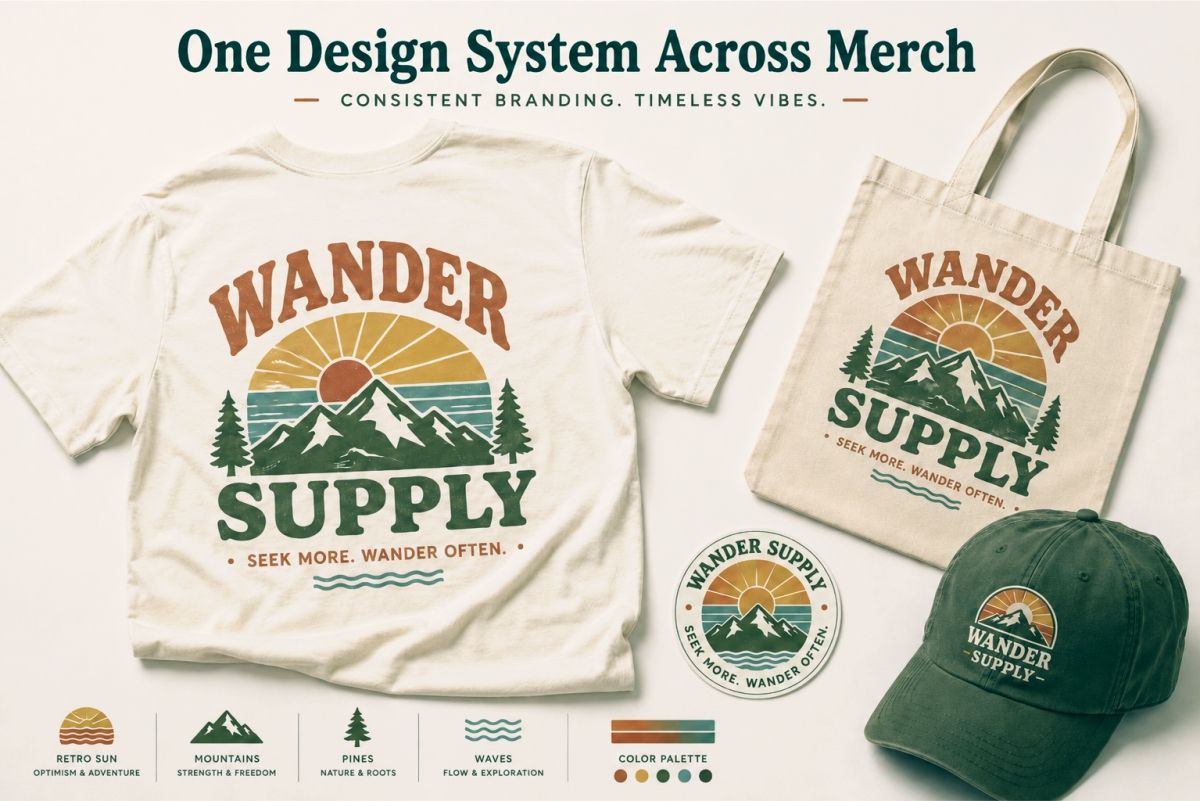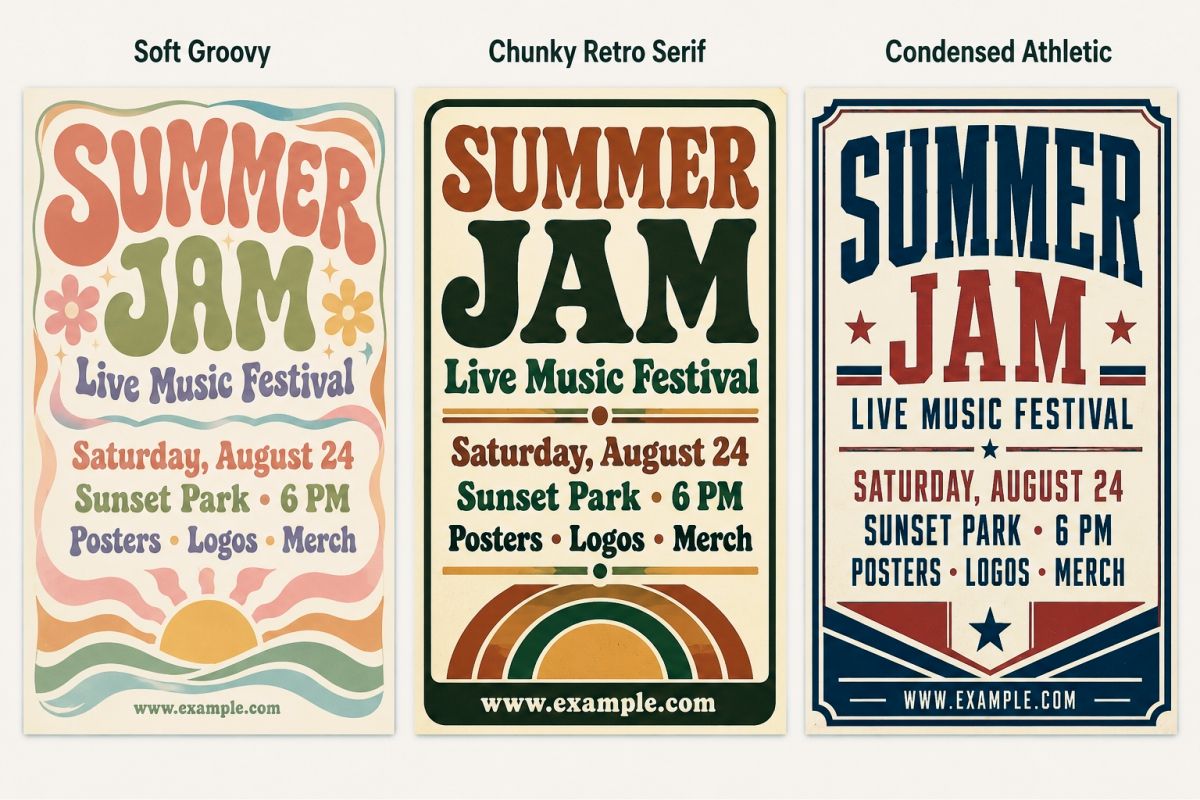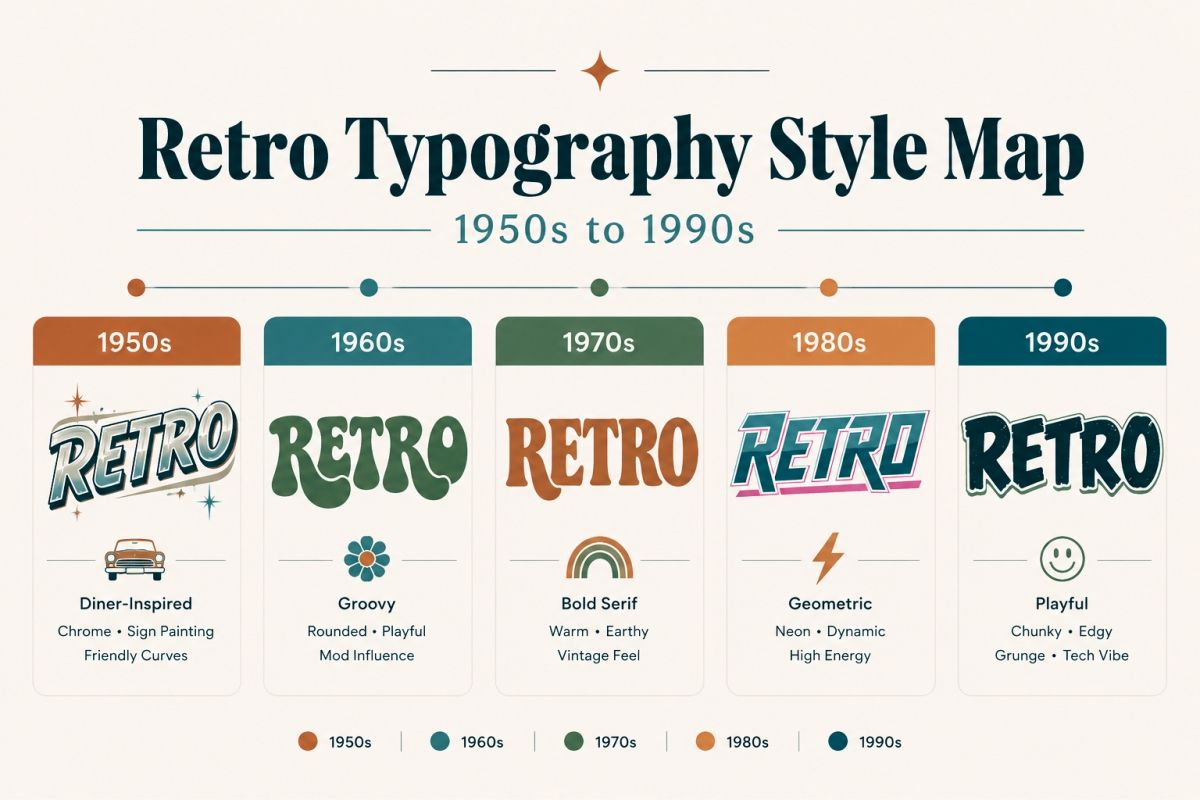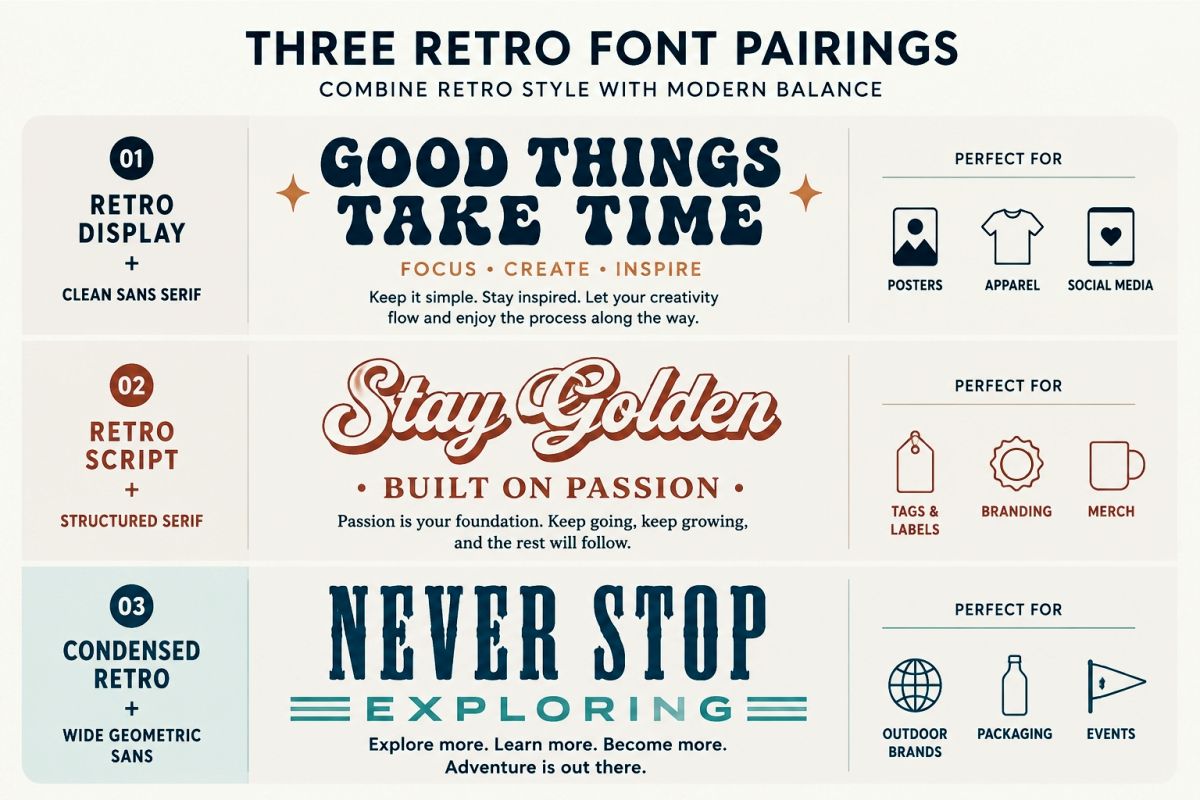
Retro Font Design Ideas for Posters, Logos, and Merch
Retro typography has a strange advantage.
It can make a new design feel familiar before someone has even read the words.
The rounded curves of a 1970s display font can feel warm and expressive. A condensed athletic typeface can bring back the energy of vintage team shirts. A slanted geometric font can make you think of arcade machines, racing graphics, or early computer packaging.
But good retro font design is not simply about choosing an old-looking typeface.
The font is only the starting point.
You also need to think about spacing, color, layout, texture, supporting fonts, and the final product. A font that looks brilliant on a large poster may become difficult to read on a small clothing label. A style that works on a T-shirt may feel too decorative for a long-term brand identity.
In this guide, I’ll show you how to approach retro typography as a complete visual system. You’ll find practical ideas for posters, logos, merchandise, and branding, along with a simple checklist for choosing a retro font you can actually use.
What Is Retro Font Design?
Retro font design uses typography inspired by visual styles from an earlier period.
That period could be the bold commercial lettering of the 1950s, psychedelic shapes from the 1960s, rounded display fonts from the 1970s, or geometric technology-inspired lettering from the 1980s and 1990s.
However, retro design does not need to recreate a decade perfectly.
In many modern projects, retro typography works best when it borrows one recognizable characteristic and combines it with a cleaner contemporary layout.
For example, you might use:
• A groovy display font with a minimal cream background.
• A vintage script logo with simple sans-serif packaging text.
• An athletic font with a modern monochrome color palette.
• A distressed serif headline inside a spacious editorial layout.
• A psychedelic font with restrained supporting graphics.
This balance keeps your design nostalgic without making it look like a movie prop.
Retro font design styles from the 1950s to the 1990s
Start With the Mood, Not the Decade
It is tempting to begin by saying, “I want a 1970s font.”
That gives you a historical direction, but it does not explain what the design should communicate.
A better starting point is the mood.
Do you want the project to feel cheerful, rebellious, outdoorsy, premium, handmade, sporty, or futuristic?
Two typefaces inspired by the same decade can produce completely different results. One may feel playful and childlike. Another may feel luxurious and editorial.
Before choosing a font, write down three words that describe the project.
For example:
• Warm, handmade, relaxed.
• Loud, youthful, energetic.
• Rugged, adventurous, practical.
• Futuristic, fast, technical.
• Nostalgic, friendly, approachable.
These words will help you judge the font by its purpose rather than its category label.
8 Retro Font Design Ideas to Explore
Retro typography covers a wide visual range. The following ideas can help you choose a more specific direction for your next project.
1. Soft Groovy Lettering for Friendly Designs
Groovy fonts usually feature rounded letterforms, soft corners, thick strokes, and playful proportions.
They work especially well when you want a design to feel warm and expressive rather than formal.
Try this direction for:
• Music posters.
• Coffee shop graphics.
• Positive quote prints.
• Beauty packaging.
• Kids’ clothing.
• Tote bags and stickers.
• Creative personal brands.
Let the font carry most of the personality. You do not need to surround it with dozens of flowers, stars, rainbows, and wavy lines.
A restrained background can make the lettering feel more intentional.
For a contemporary result, pair a bold groovy headline with a small neutral sans serif. The contrast helps the headline stand out while keeping supporting information readable.
2. Chunky Retro Serifs for Confident Logos
Chunky serif fonts combine strong shapes with a slightly nostalgic character.
Some have soft, rounded serifs. Others use sharp slab-like details. Both can create a memorable logo when the letterforms have a clear silhouette.
This direction can work for:
• Food brands.
• Clothing labels.
• Creative studios.
• Record shops.
• Restaurants.
• Handmade products.
• Lifestyle businesses.
Start by typing the brand name in uppercase, lowercase, and title case. Do not assume the font’s default preview is the strongest option.
Check how the first and last letters interact. These two characters often define the overall silhouette of a wordmark.
You can also test alternate characters and ligatures when they are included. A single unusual letter may be enough to make the logo recognizable.